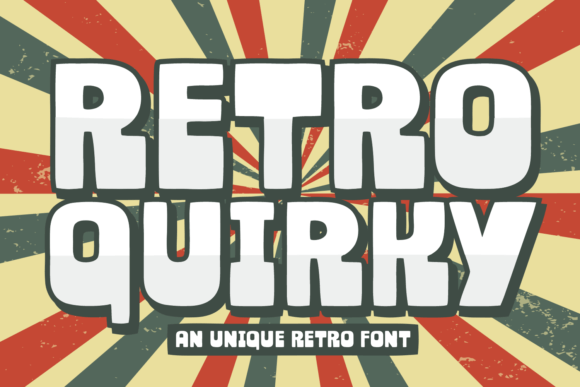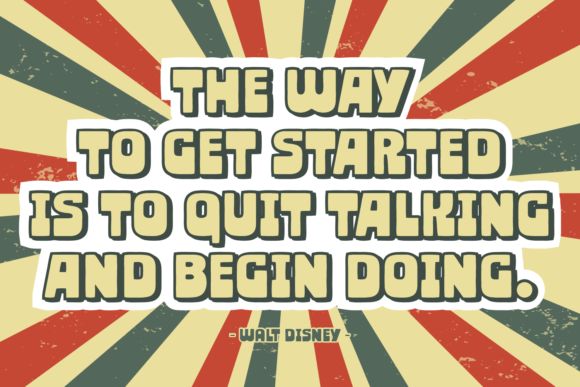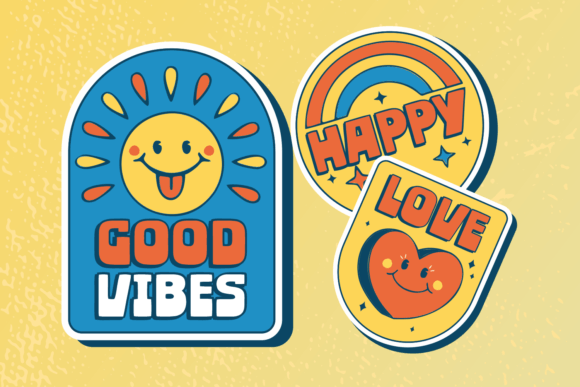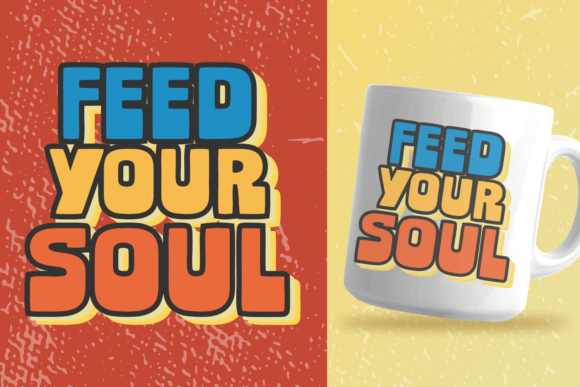
Retro Quirky Font
About the Retro Quirky Font
The Retro Quirky Font offers a perfect balance of form and function for your design needs. Retro Quirky is a thick and unique display font. Bold and chunky, this retro-style set of characters is perfect for creating charming, eye-catching typography. It looks fantastic on posters, apparel, kids’ t-shirts, invitations, advertisements, headlines, titles, signage, and more.
Retro Quirky’s bold, chunky style shines in headlines, posters, and short impactful text. Its playful energy makes it ideal for branding projects targeting younger audiences or those with a vintage aesthetic, such as clothing lines, food brands, or entertainment companies. Avoid using it for body text or lengthy paragraphs; its weight and unique letterforms hinder readability in continuous text.
For effective pairings, consider a clean sans-serif like Open Sans or Lato for body copy, providing a strong contrast and enhancing legibility. A simple serif like Merriweather can also work well, offering a touch of classic elegance to balance the font’s retro quirkiness. Avoid pairing it with other highly stylized fonts, which would create visual clutter.
Ultimately, Retro Quirky projects a fun, energetic personality. It’s best suited for designs that need a bold statement and a touch of vintage charm, not subtlety or refined minimalism.
Retro Quirky Font Example